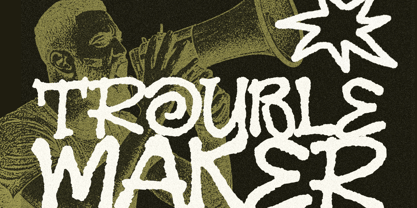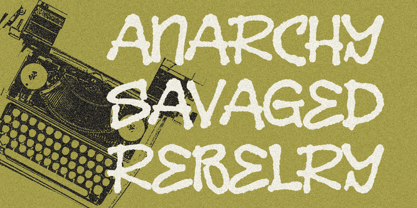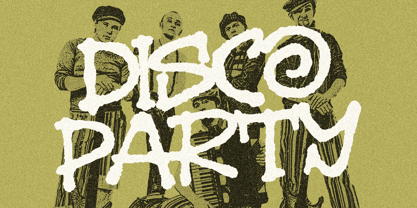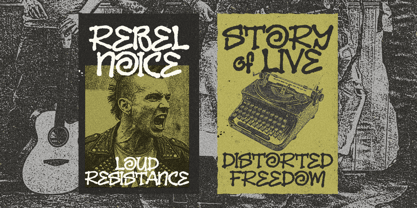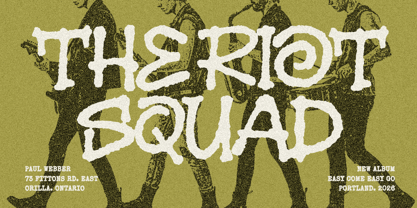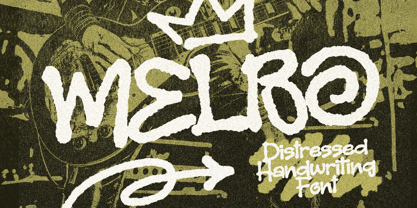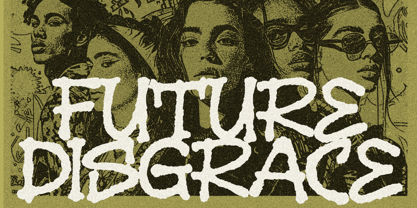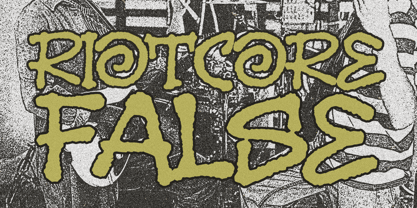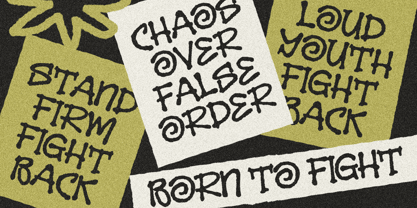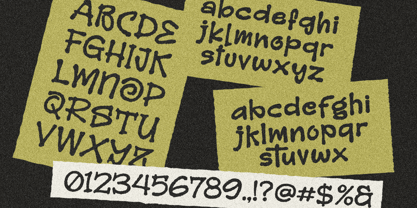
Melbo
by Blankids
The Melbo Font Family was designed by Bangkit Tri Setiadi and published by Blankids. Melbo contains 1 styles. More about this family
MELBO – Distressed Handwriting Font MELBO is a bold, distressed handwriting font inspired by raw punk energy, underground zines, riot posters, and DIY street culture. It captures the feeling of thick marker strokes scrawled across city walls loud, unapologetic, and full of attitude. This is not a clean or polished typeface. MELBO embraces imperfection, texture, and expressive chaos to create a powerful visual statement.
Designers: Bangkit Tri Setiadi
Foundry: Blankids